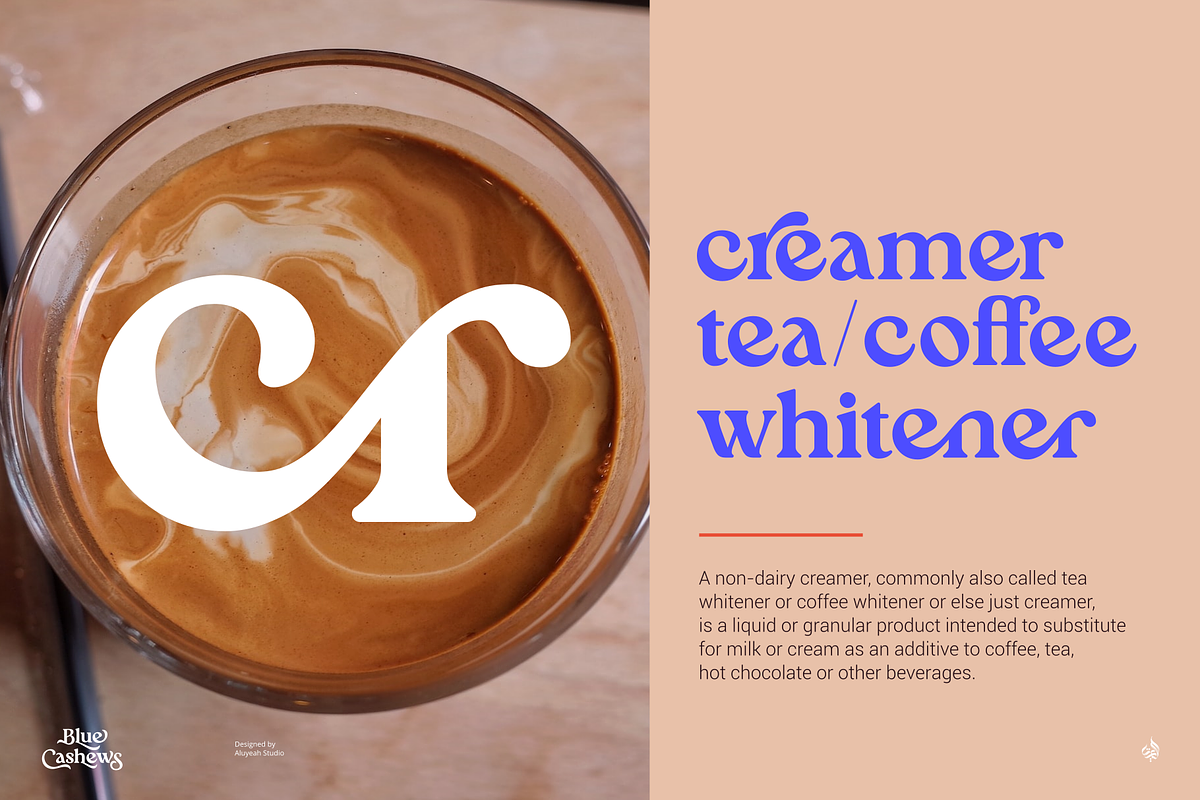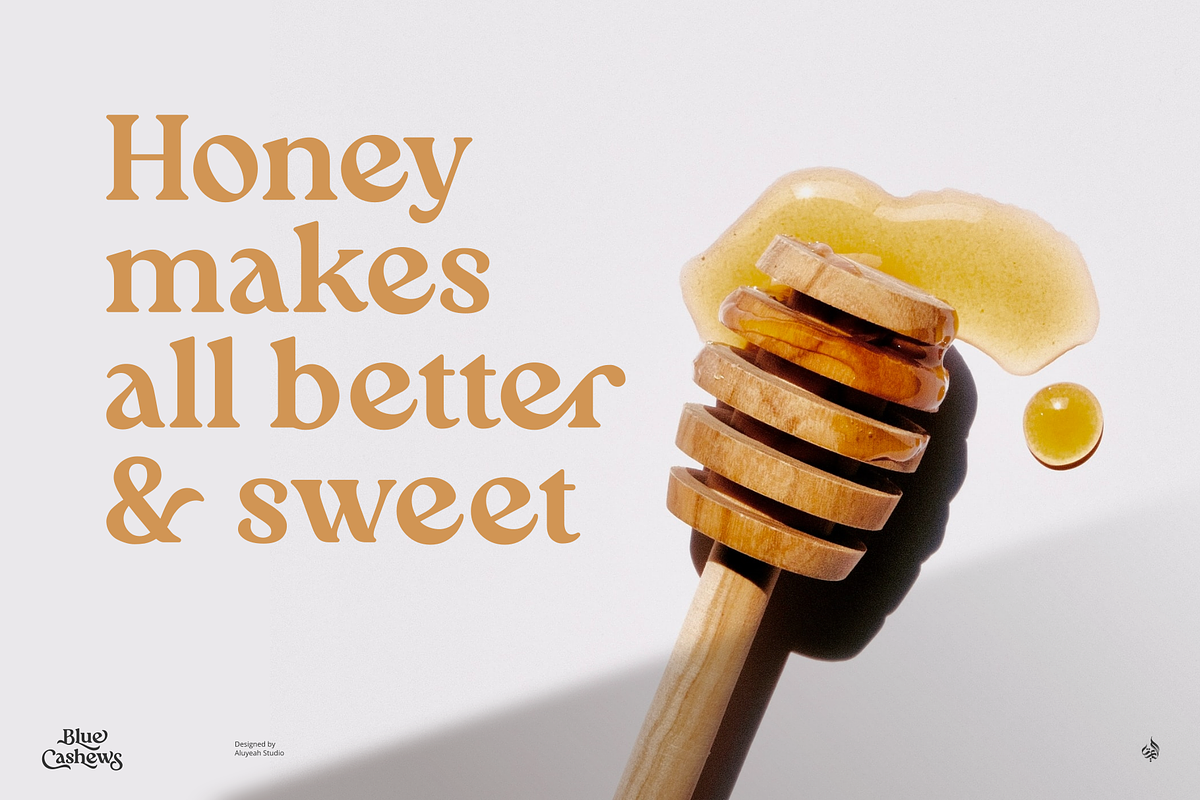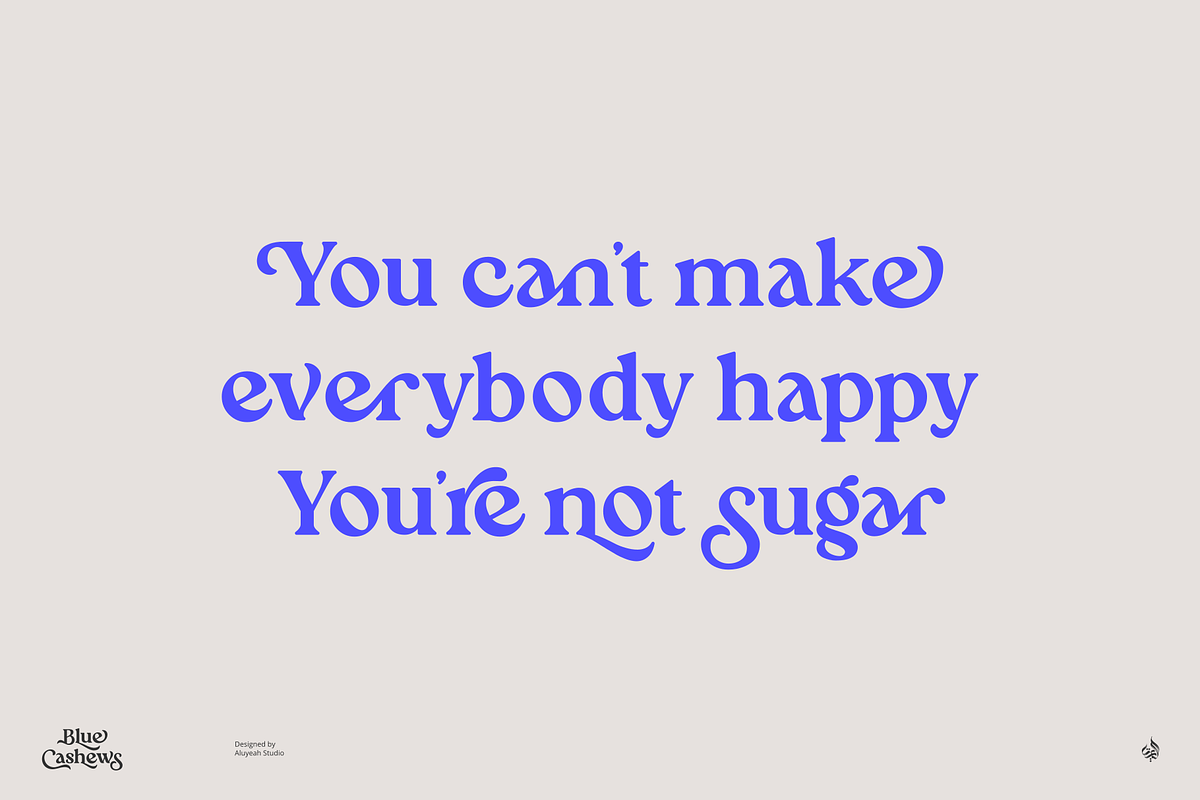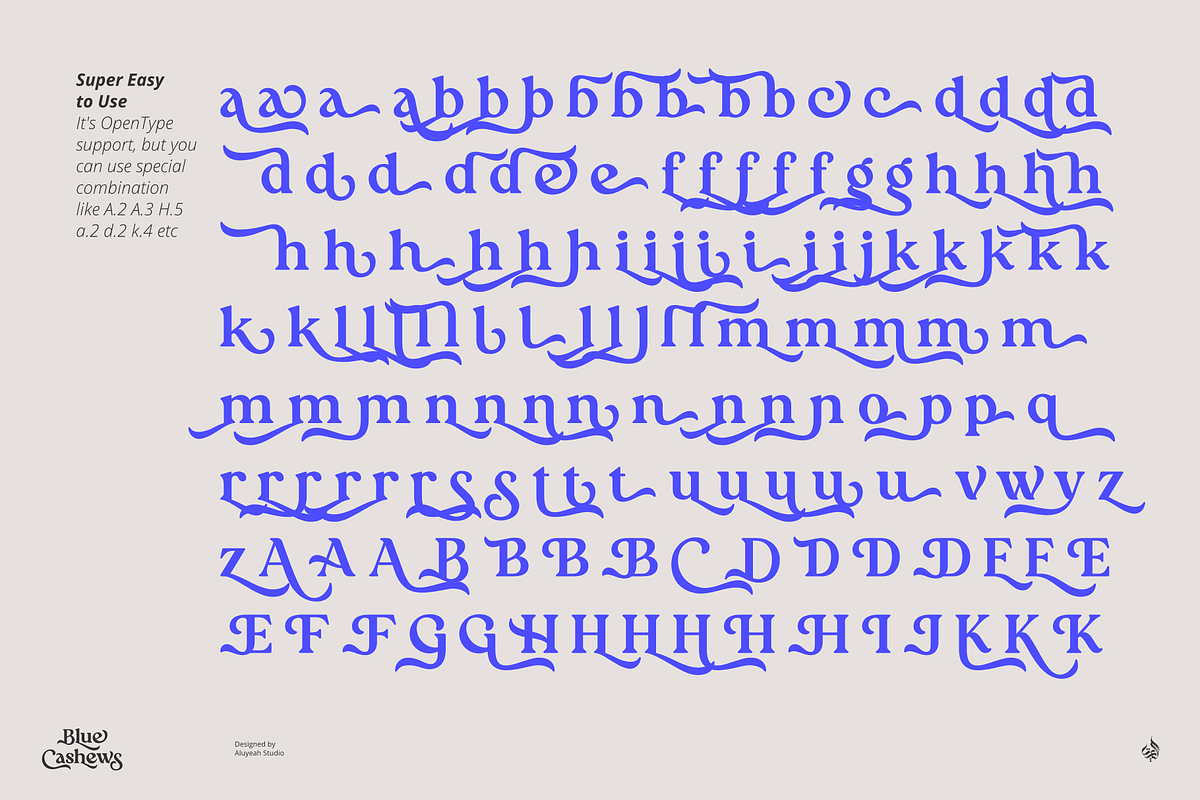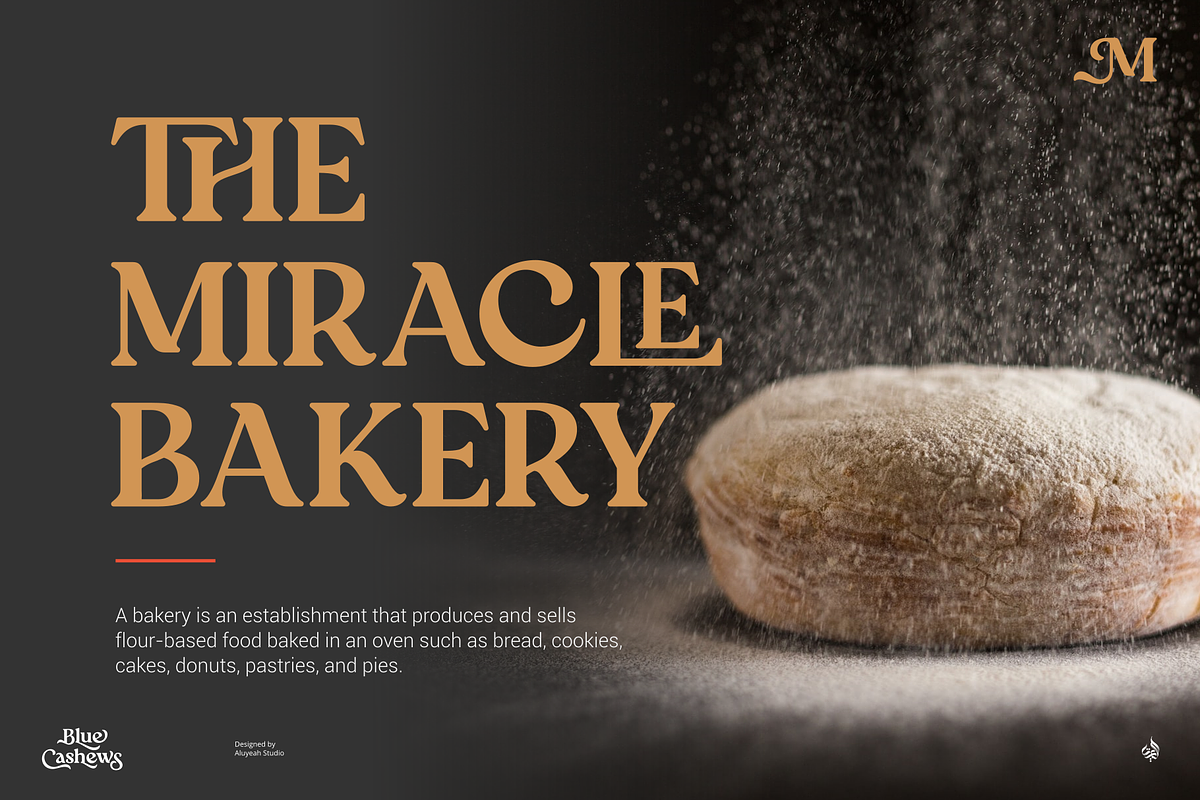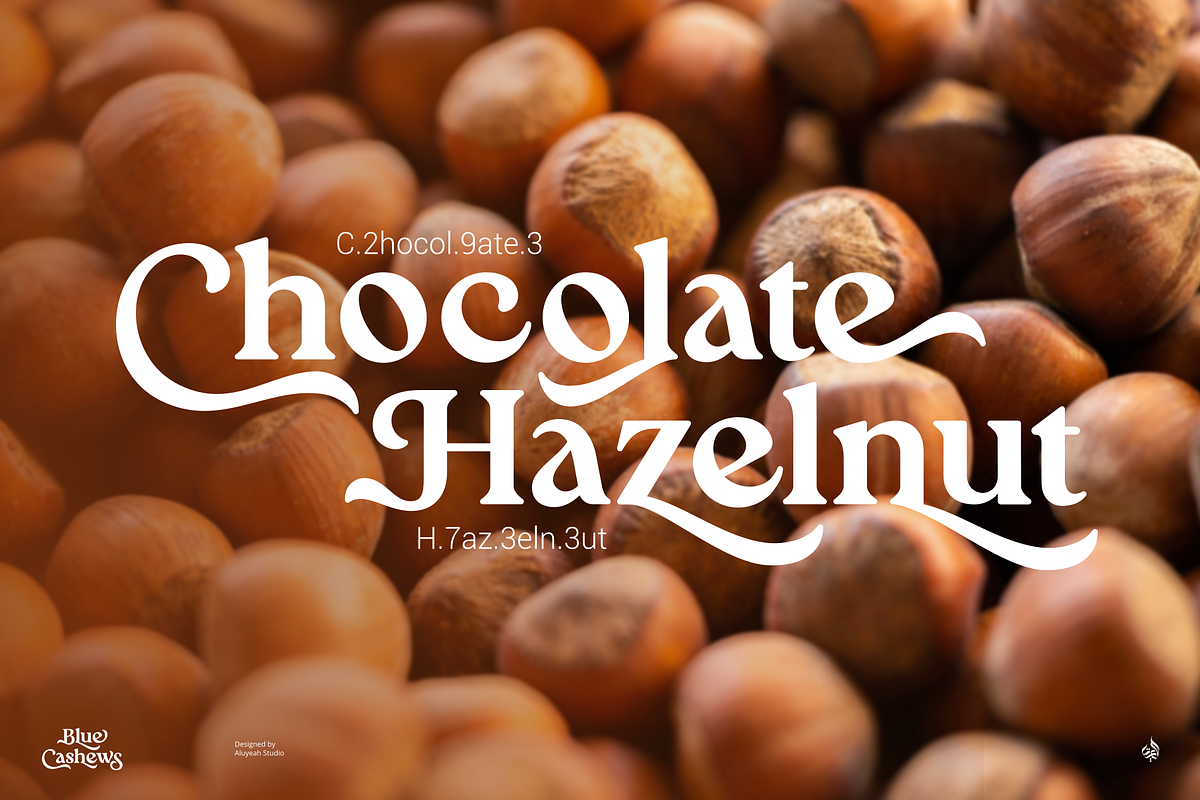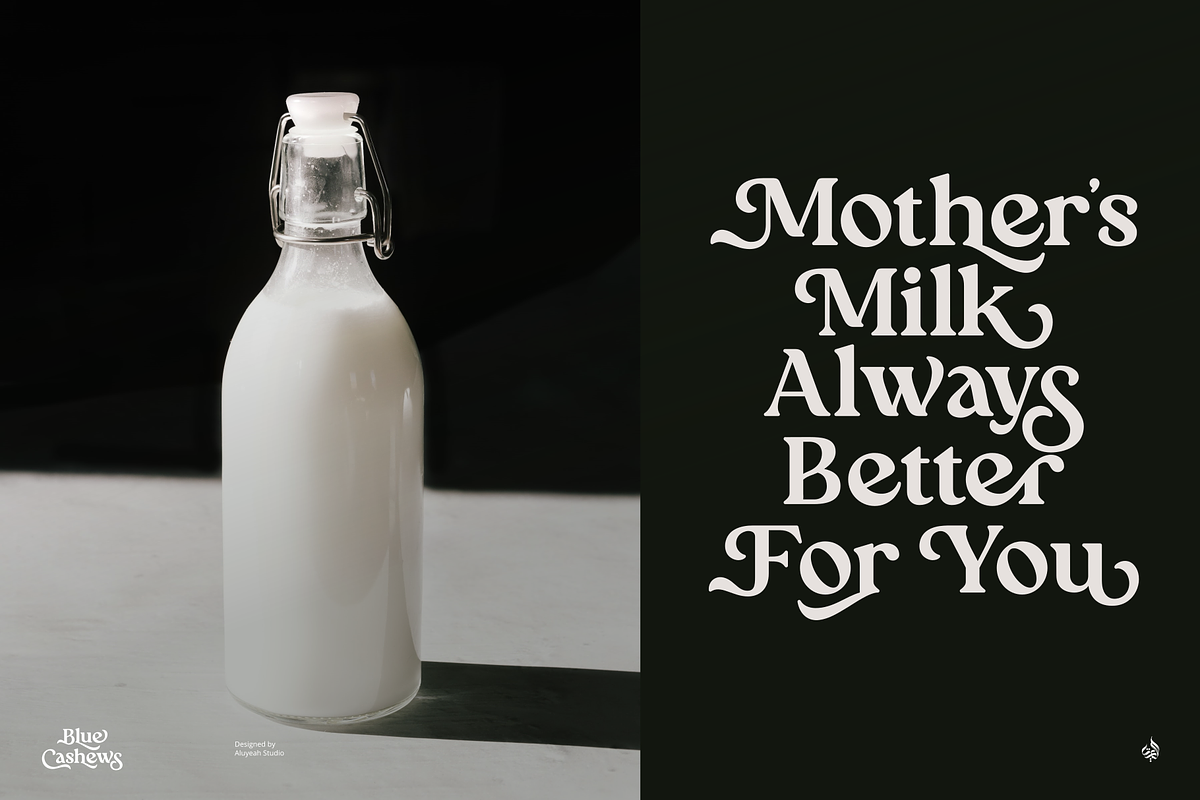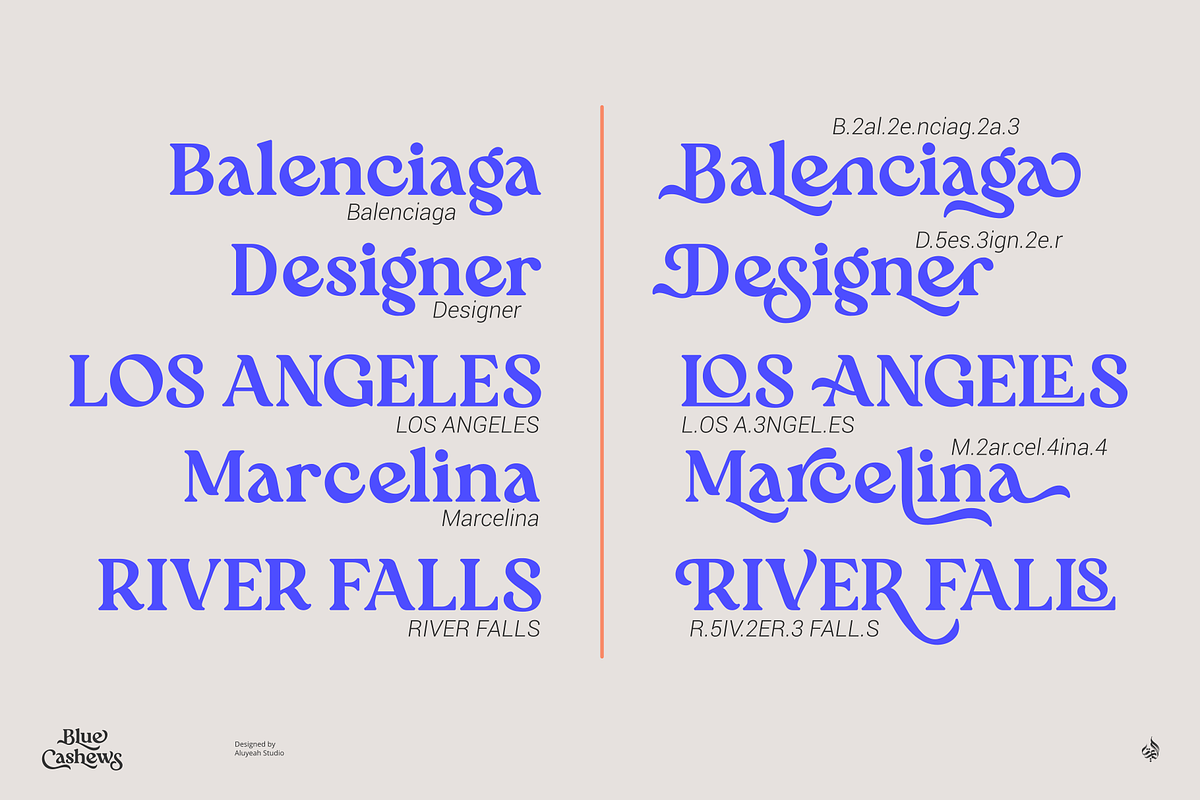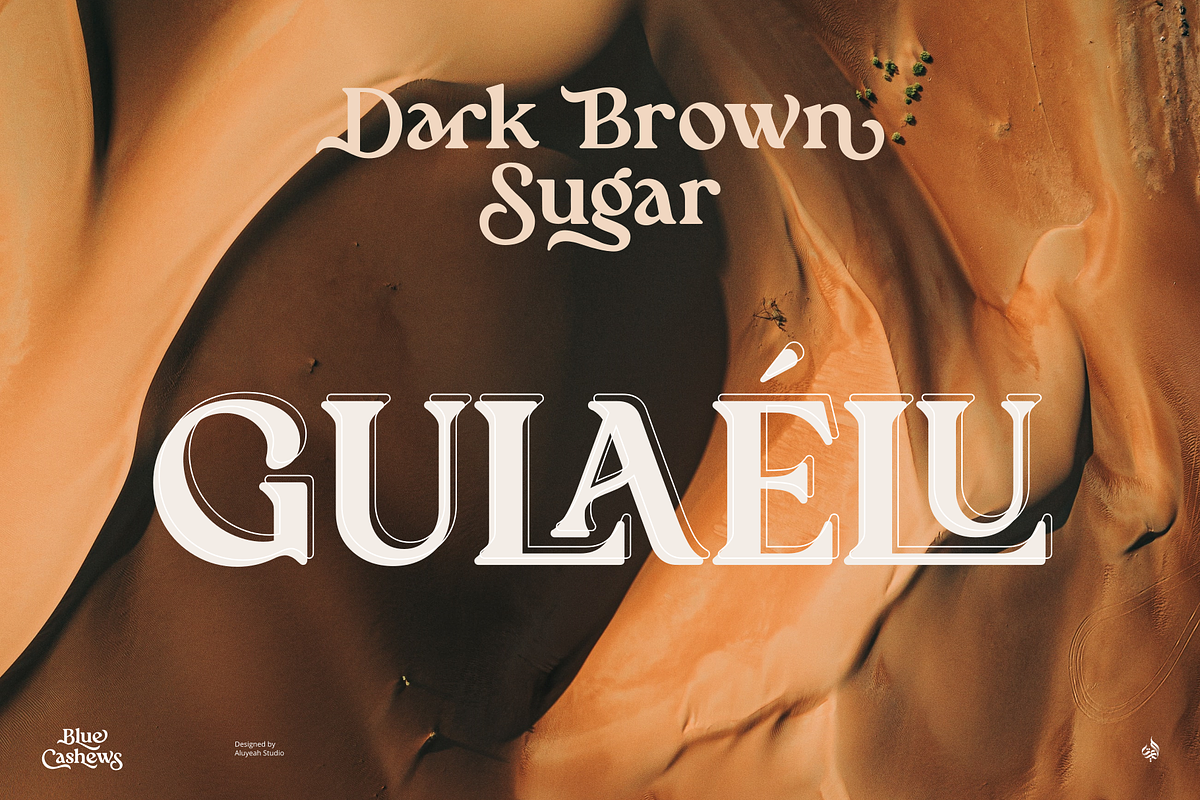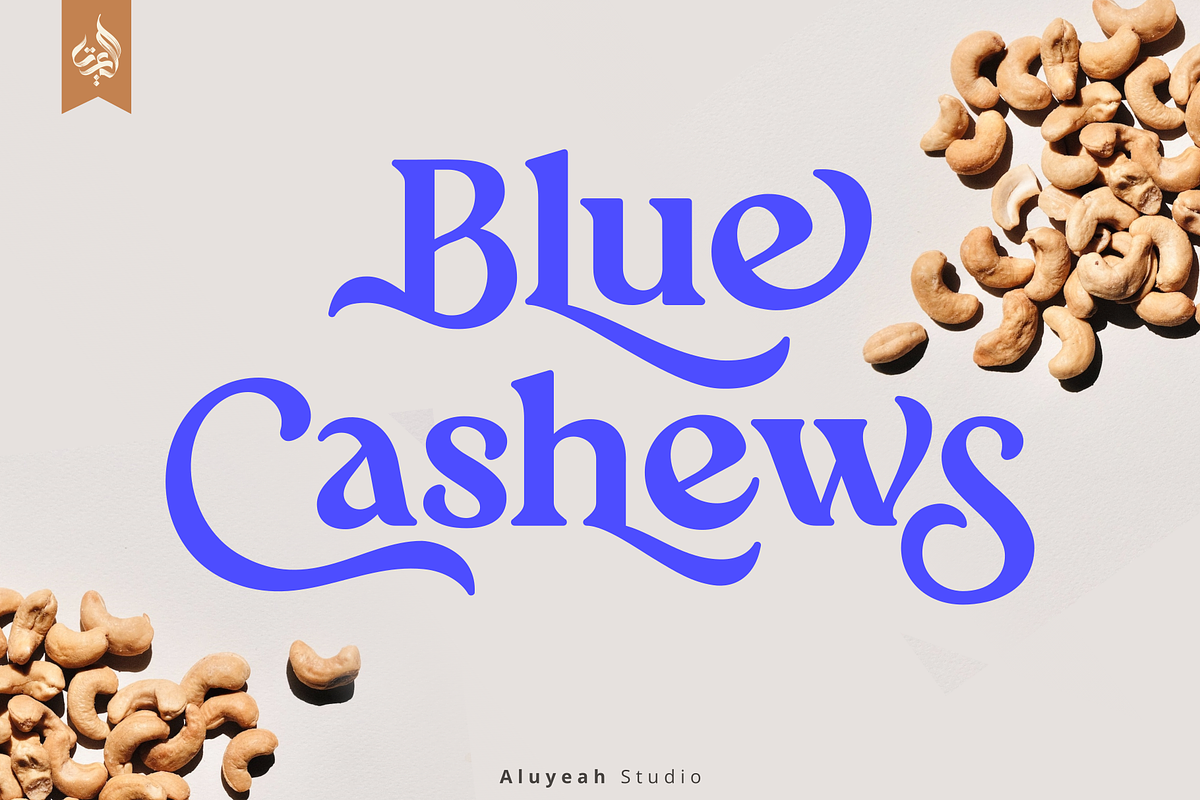
Blue Cashews
So, when I try to create a new font, I'm having excruciating pain in our backs. The pain penetrated into my chest, making it hard to breathe. Urrgghh that hurts so much!
And you know what causes it? What I thought before was stiffness in my rib joints or symptoms of heart disease. Turns out it was because I ate a lot of cashews. So I named this font Blue Cashews LOL.
Blue Cashews' alternates are inspired by the curved shape of a cashew with a blunt tip. Blue Cashews give the impression that we often see in the packaging of snacks, cereals, milk, and so on. So warm, sweet, fresh, crunchy and full of love!
It can be applied to many areas of design. Coming with 220+ stunning and super easy to use alternates and ligatures.Very suitable for packaging, apps, magazine, headline, website, ads and all type of design project you have.
- OpenType support
- Multilingual support (15 languages)
- Super Easy to Use alternates - You can easily call alternates using special combination like A.2 S.2 L.A r.a a.r c.m etc.
To get results like the preview just type B.2l.3ue.2 C.2ash.2ew.2s.3